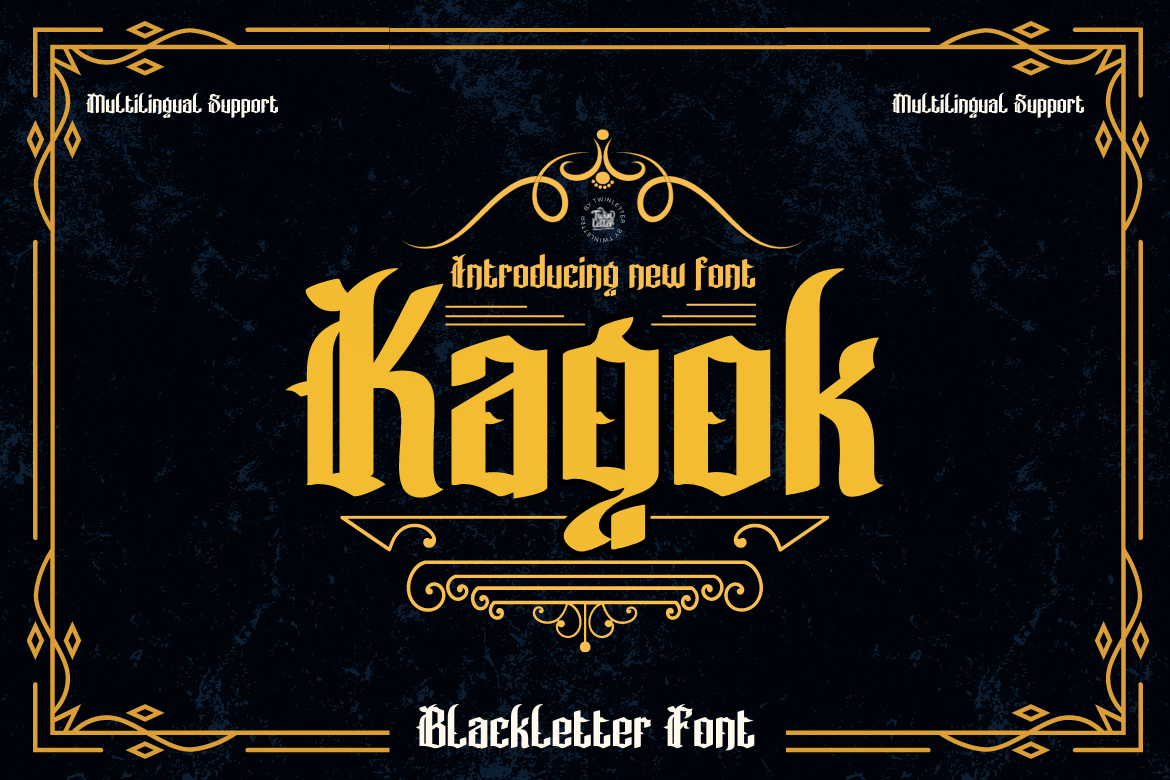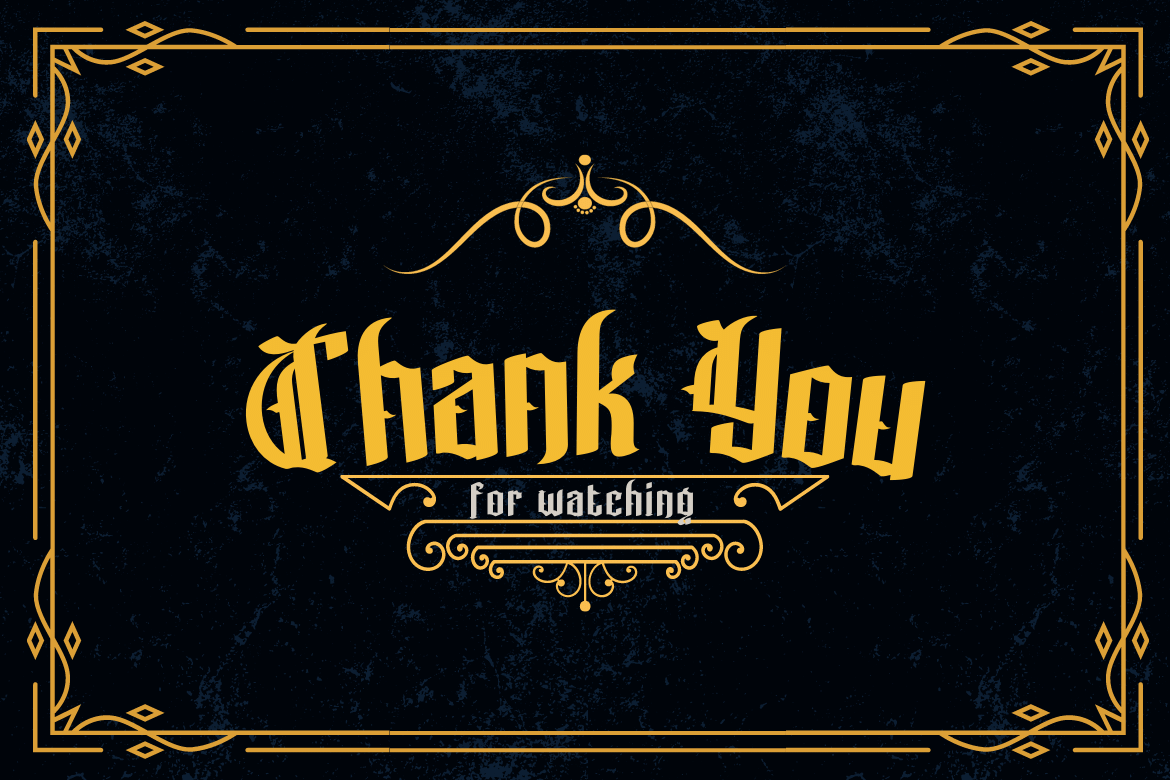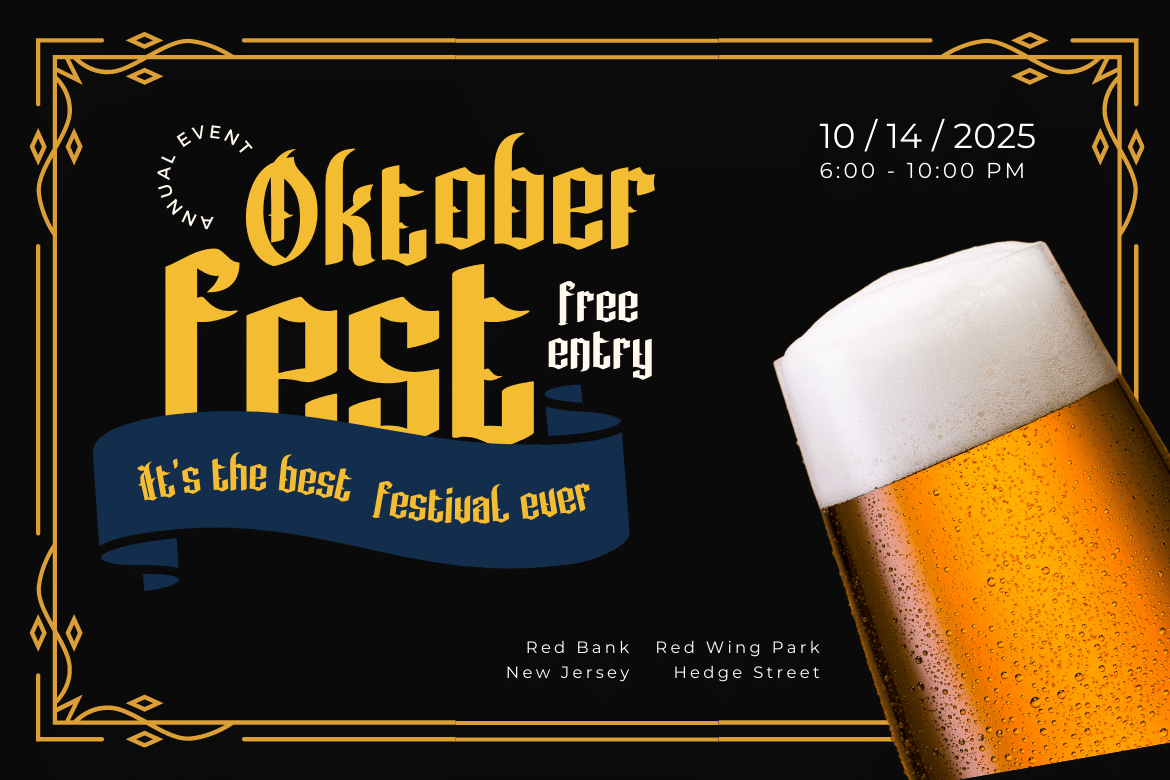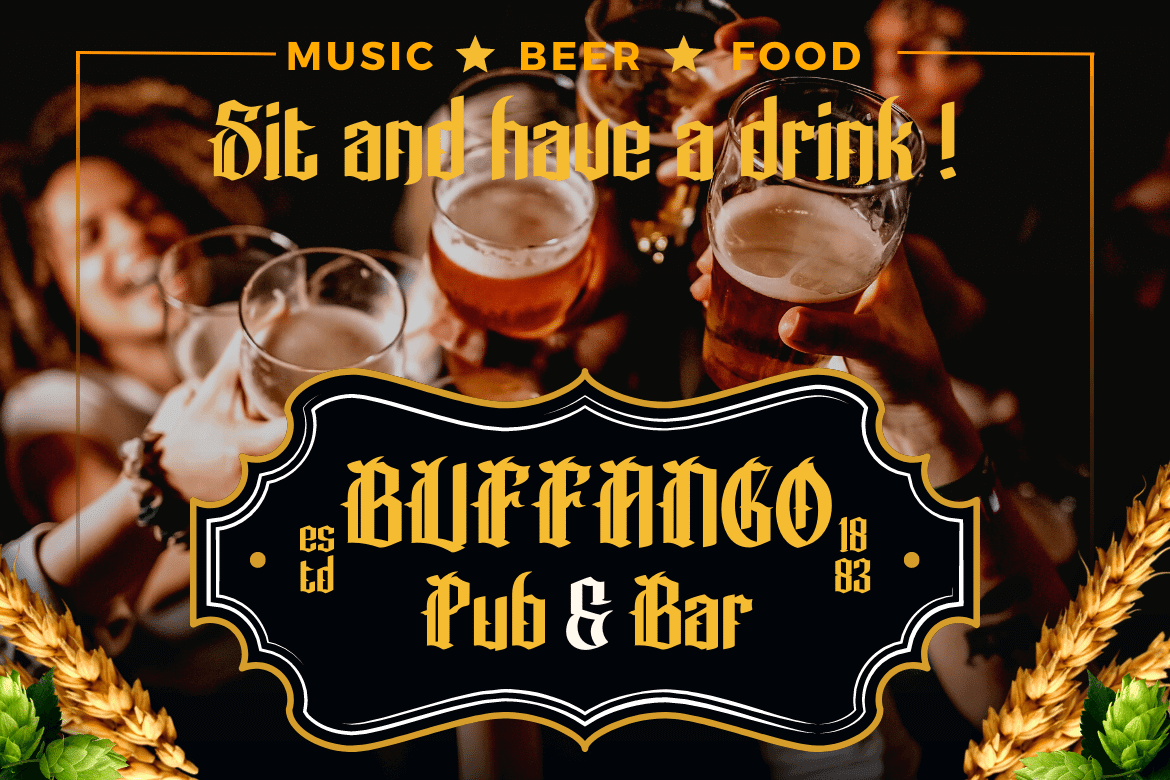
Kagok
Introducing Kagok Blackletter font
Kagok is typography designed with a classic blackletter font style, resulting in a bold and unique anatomical shape. Kagok is a strong and vintage font inspired by the classic Victorian typeface style combined with a strong style so that it looks bold in your projects.
This font is perfect for use on projects that need a futuristic, vintage, and elegant style.